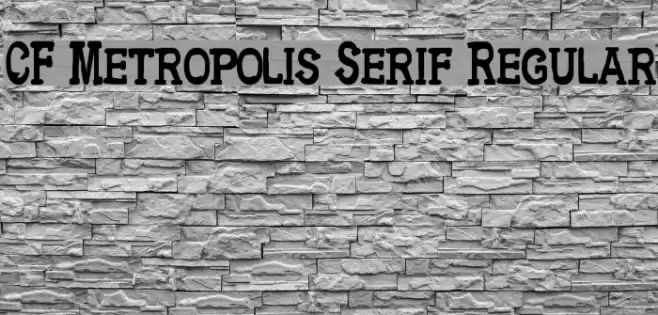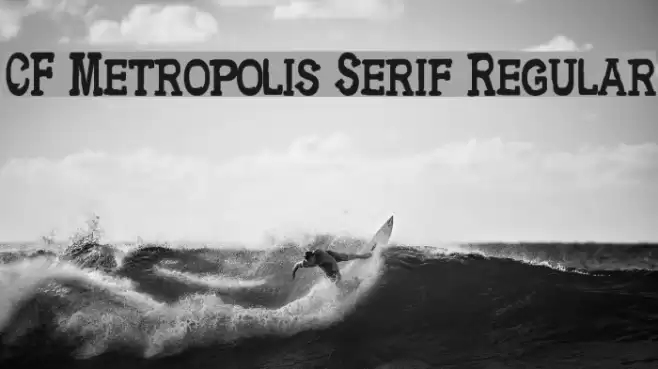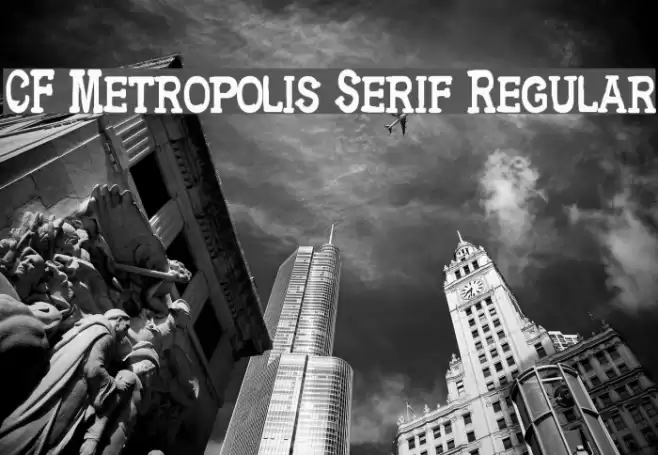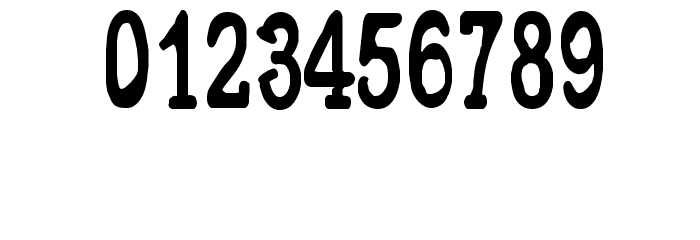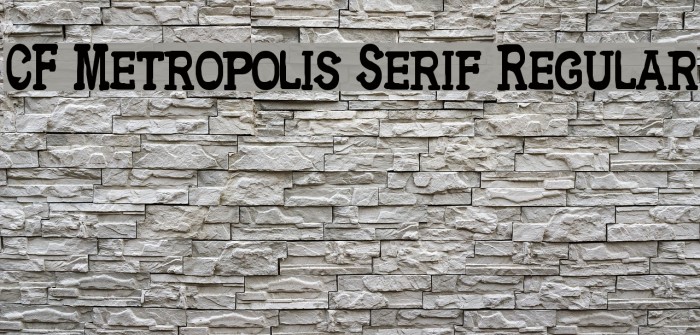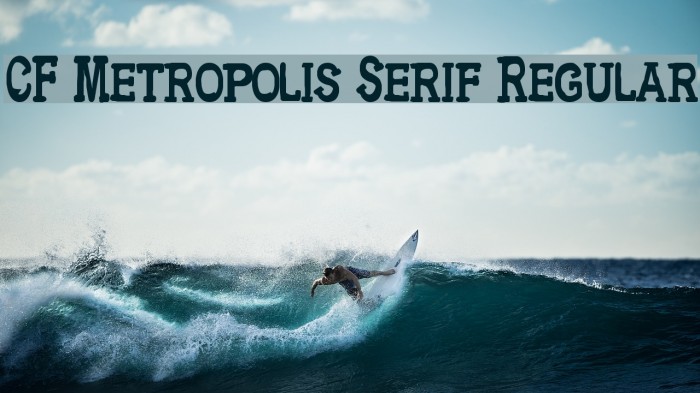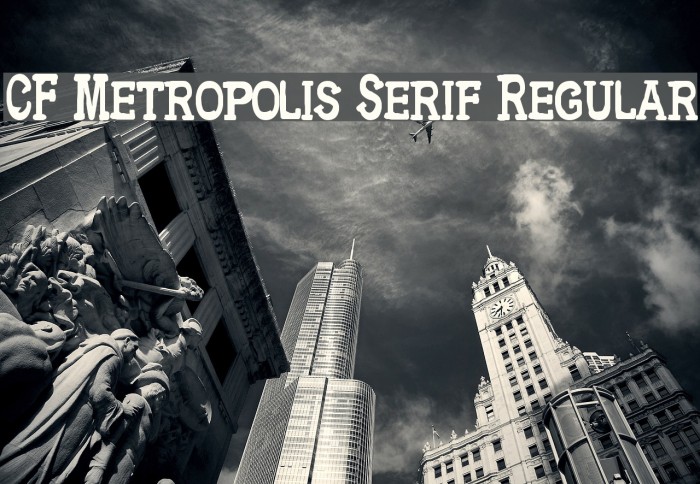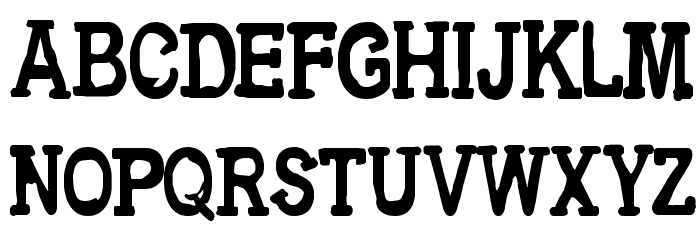
CF Metropolis Serif Regular Font
CF Metropolis Serif Regular Description
This font features a bold and robust serif style with strong, pronounced strokes and a classic appearance. The characters exhibit a uniform thickness, providing a sense of stability and strength. The serifs are prominent and slightly rounded, adding a touch of elegance to the overall design. The font maintains a consistent baseline, ensuring readability and a cohesive look across different characters. Its traditional style is reminiscent of vintage typefaces, making it suitable for projects that require a classic and authoritative feel. The numbers are equally bold, matching the letterforms in weight and style, ensuring a harmonious appearance when used together.
A bold serif font with strong strokes and a classic, vintage appeal from Distorted Eroded fonts.
- Proposed Projects: Ideal for headlines, posters, branding, and any design requiring a strong, classic serif presence.
- Overall Style: Vintage